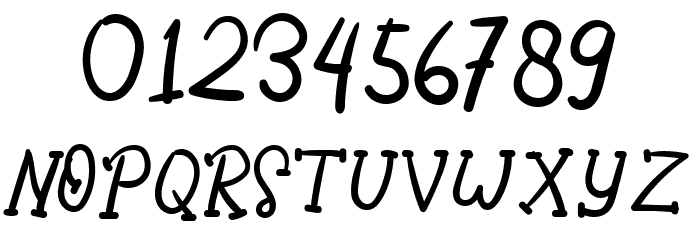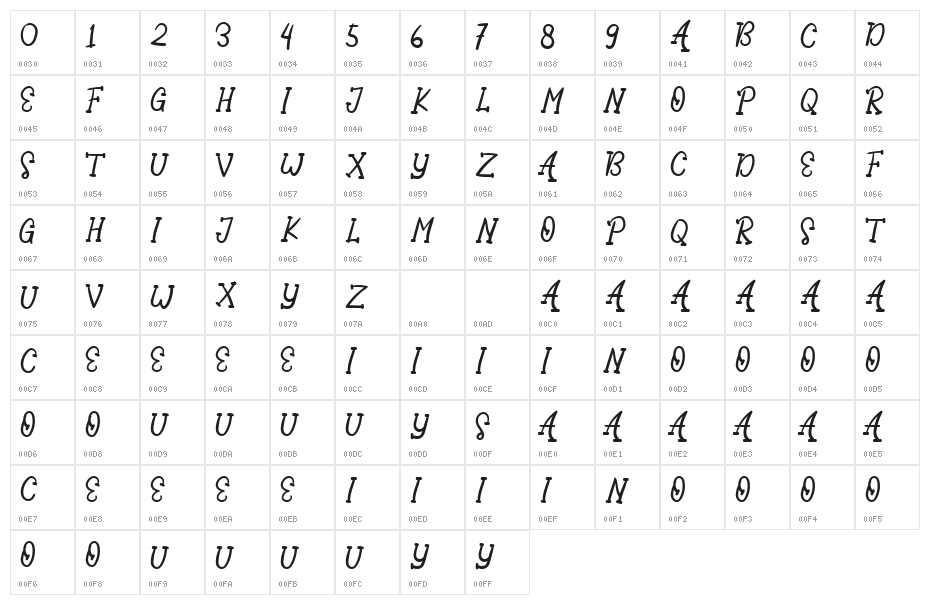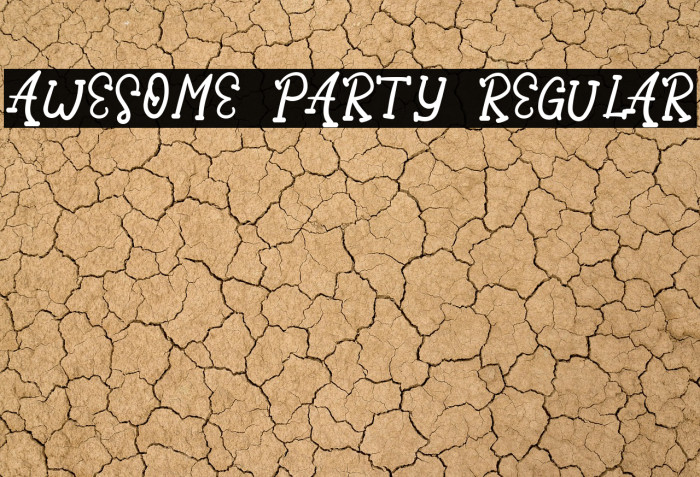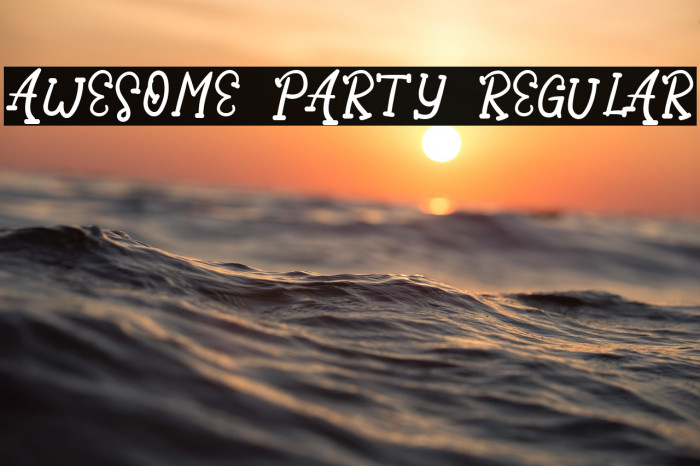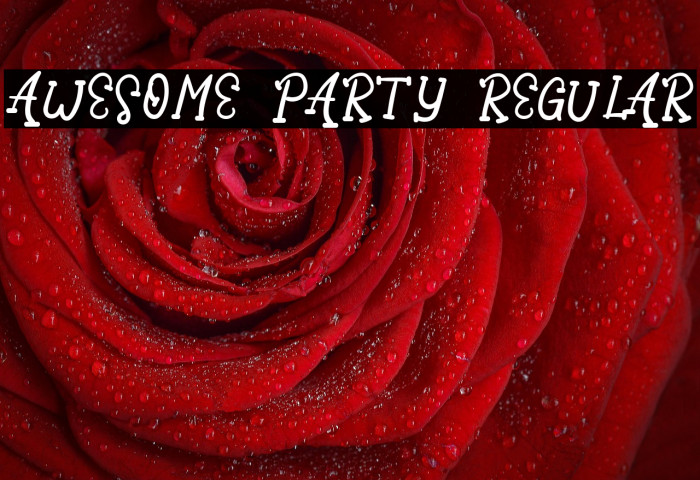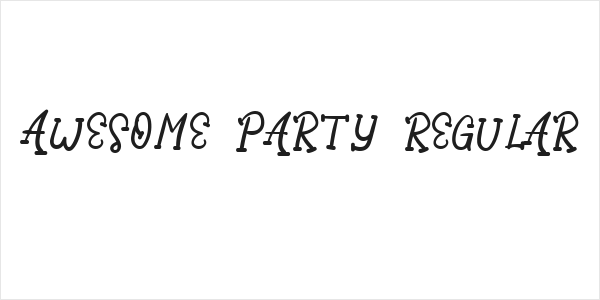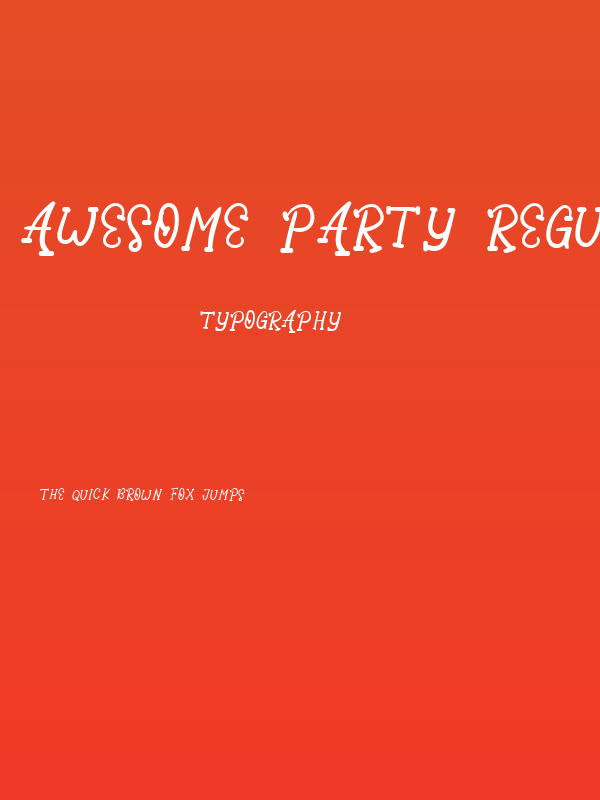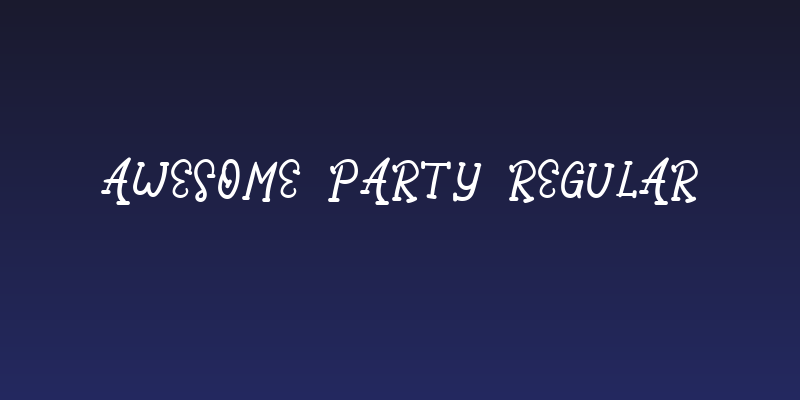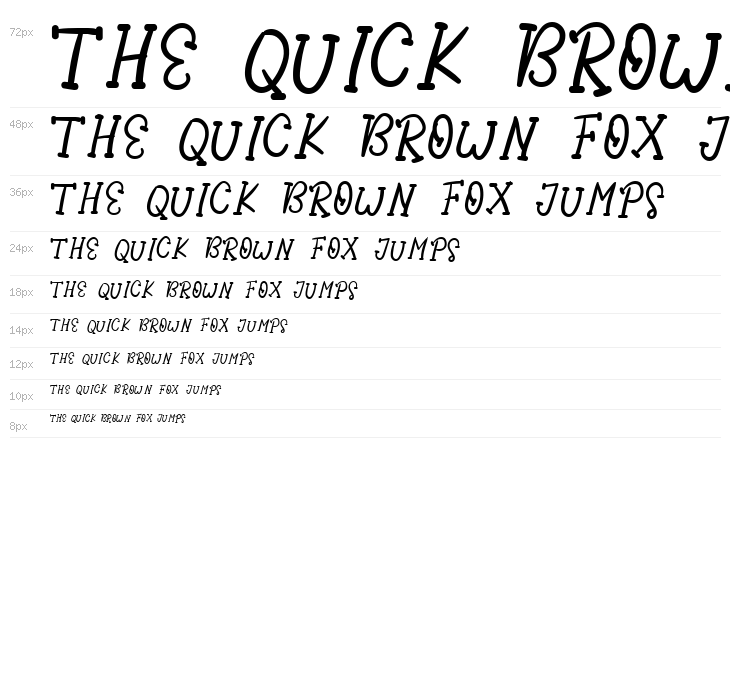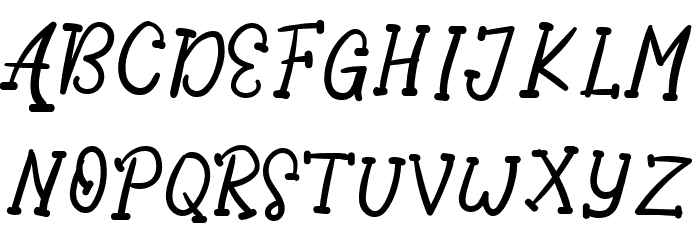
Awesome Party Regular Font
Awesome Party Regular Description
This font exudes a playful and energetic vibe, characterized by its whimsical and slightly irregular strokes. The letters are bold and have a hand-drawn quality, giving them a lively and informal appearance. The uppercase and lowercase letters maintain a consistent style, with rounded edges and a slight slant that adds to the dynamic feel. The numerals are equally playful, matching the overall aesthetic of the alphabet. Special characters are included, maintaining the same energetic style. This font is perfect for projects that require a fun and engaging look.